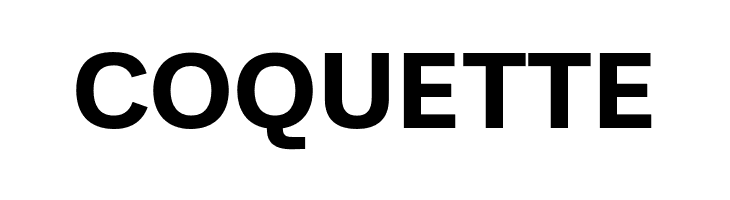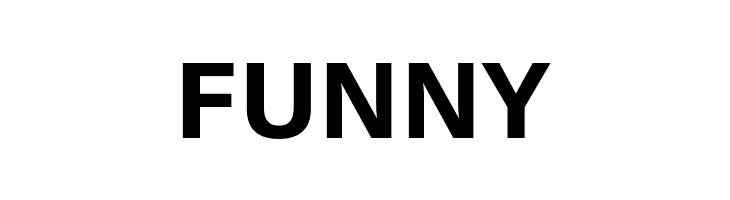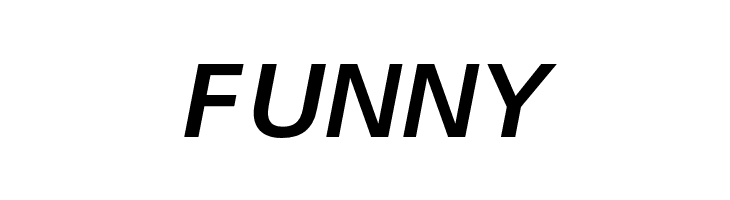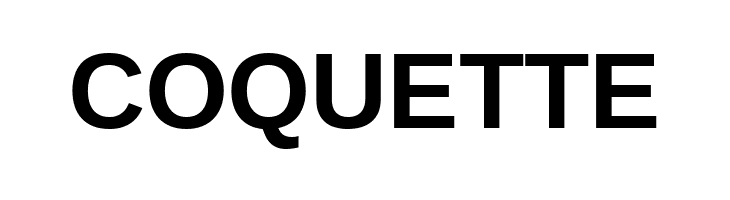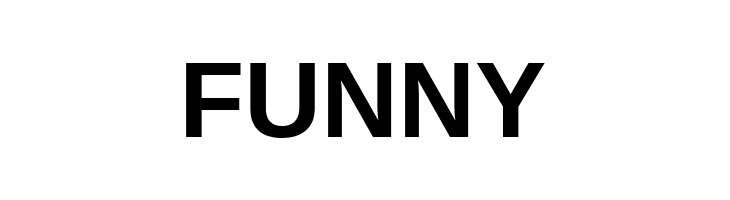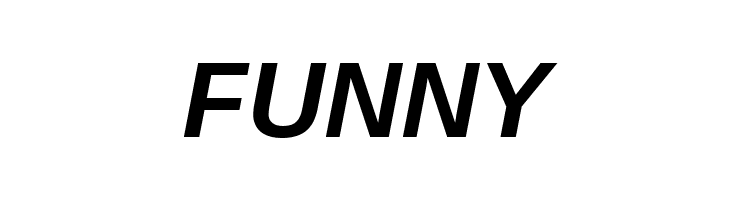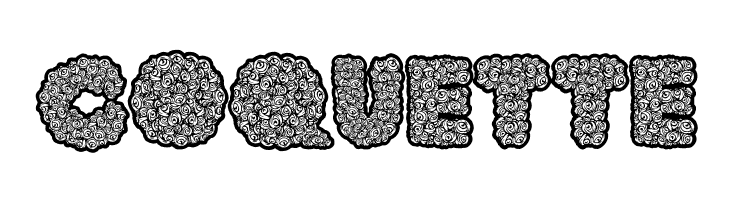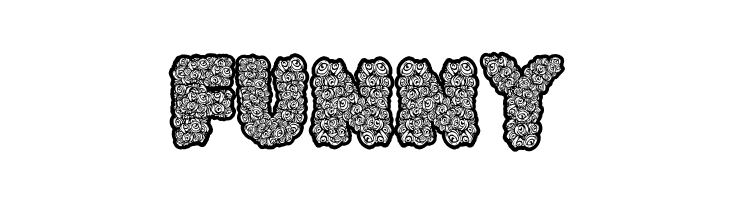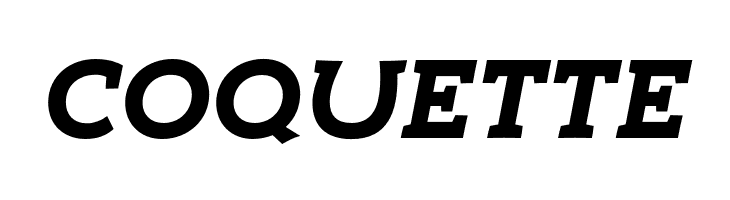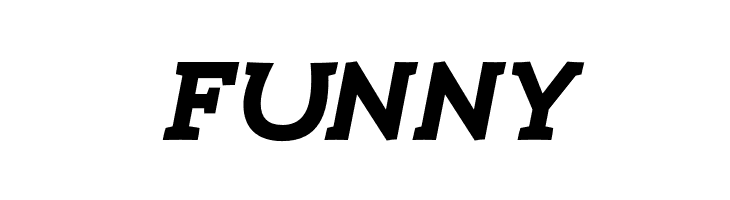
• Ultra 911 Bold Italic
A bold, italicized font with a futuristic and dynamic design.
• Ultramarines Bold
A bold, geometric font with strong, angular lines and a futuristic look.
• Ultramarines Bold Italic
A bold, italicized font with a futuristic, dynamic style.
• Umba Sans Bold Demo
A bold, modern sans-serif font with clean lines and geometric shapes.
• Umba Slab Demo Alt Bold
A bold slab serif font with a modern yet classic appeal.
• Umba Slab Demo Alt Bold Italic
A bold, italic slab serif font with a modern yet classic style.
• Umba Slab Demo Bold
A bold, modern slab serif font with high contrast and strong serifs.
• Umba Slab Demo Bold Italic
A bold, italicized slab serif font with strong, thick strokes.
• Umba Soft SC Bold Demo
A bold, rounded font with a modern and friendly style.
• UmbaSans-Bold
A bold, modern sans-serif font with clean, geometric lines.
• UnB Office Bold
A bold, modern sans-serif font with clean lines and balanced spacing.
• UnB Office Bold Italic
• UnBPro-Bold
A bold, modern font with clean lines and a professional appearance.
• UnBPro-BoldItalic
A bold, italic font with a modern and dynamic style.
• UNCLE PERSONAL USE Bold
A bold, textured font with a playful, cloud-like design.
• UNDERWAY PERSONAL USE Bold
• Unholy Trade
• Uni Neue-Trial Bold
A bold, modern sans-serif font with clean, geometric lines.
• Uni Neue-Trial Bold Italic
A modern, bold, and italic font with medium contrast and slightly condensed characters.
• Uniform Bold Bold
• UnifrakturCook
• Universal Jack Bold
A bold, geometric font with rounded edges and a modern aesthetic.